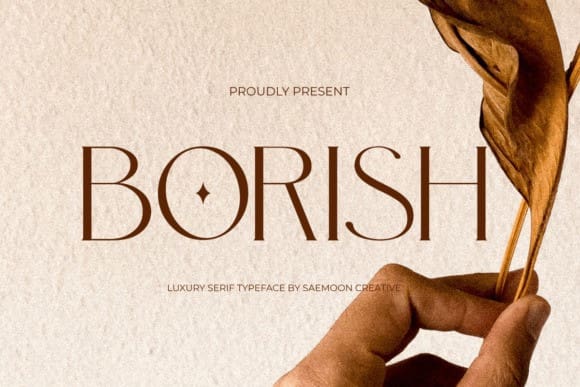
Borish Font
Borish Font is a stylish serif font exuding timeless sophistication and modern elegance. With sleek lines and balanced proportions, it lends a touch of refinement to any design project. Ideal for editorial layouts, branding, and luxury packaging, Borish elevates typography with its classic yet contemporary aesthetic.